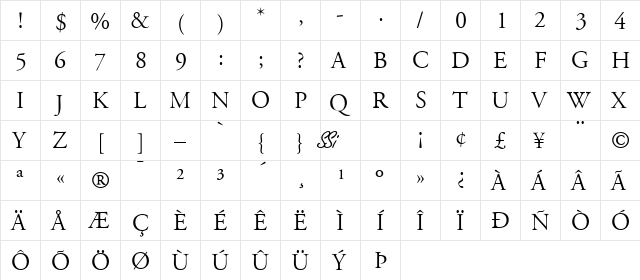
GaramondTitlingCapsSSi Medium Font Preview
GaramondTitlingCapsSSi Medium
GaramondTitlingCapsSSi Medium Font Details
Design Context for GaramondTitlingCapsSSi Typeface
GaramondTitlingCapsSSi is a composed and adaptable typeface that performs quietly and consistently across a wide range of design contexts.